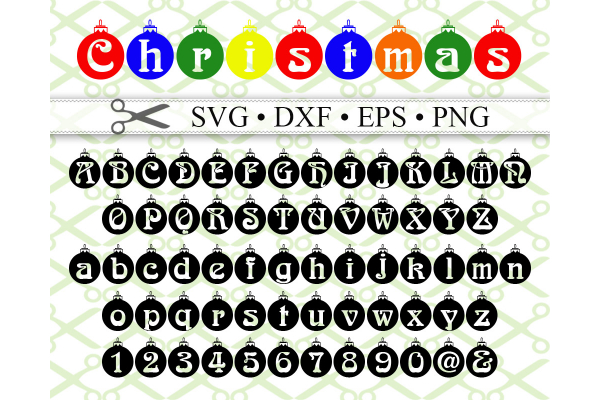
CHRISTMAS LIGHTS MONOGRAM SVG FONT, In File Formats SVG, DXF, EPS & PNG. Upper case letters inside Christmas bulbs. Also includes numbers 0-9 and two sympbols & and @